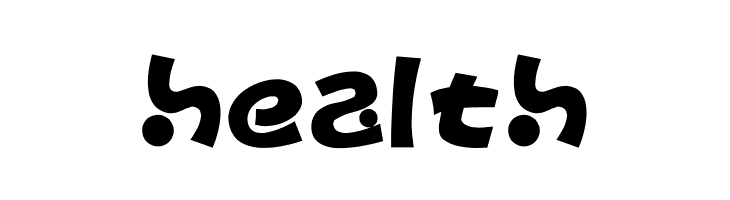
Torid Font
Ruben Holthuijsen
A modern, rounded font with a clean and approachable design.
A highly decorative and abstract font with intricate geometric patterns.
Gypsy Killer Half-Tone Italic Font
A bold, italic, futuristic font with angular shapes and horizontal line accents.
Stray Cat ExtraLight Condensed Font
A playful, handwritten font with thin, irregular strokes and a condensed structure.
Stray Cat Black Extended Font